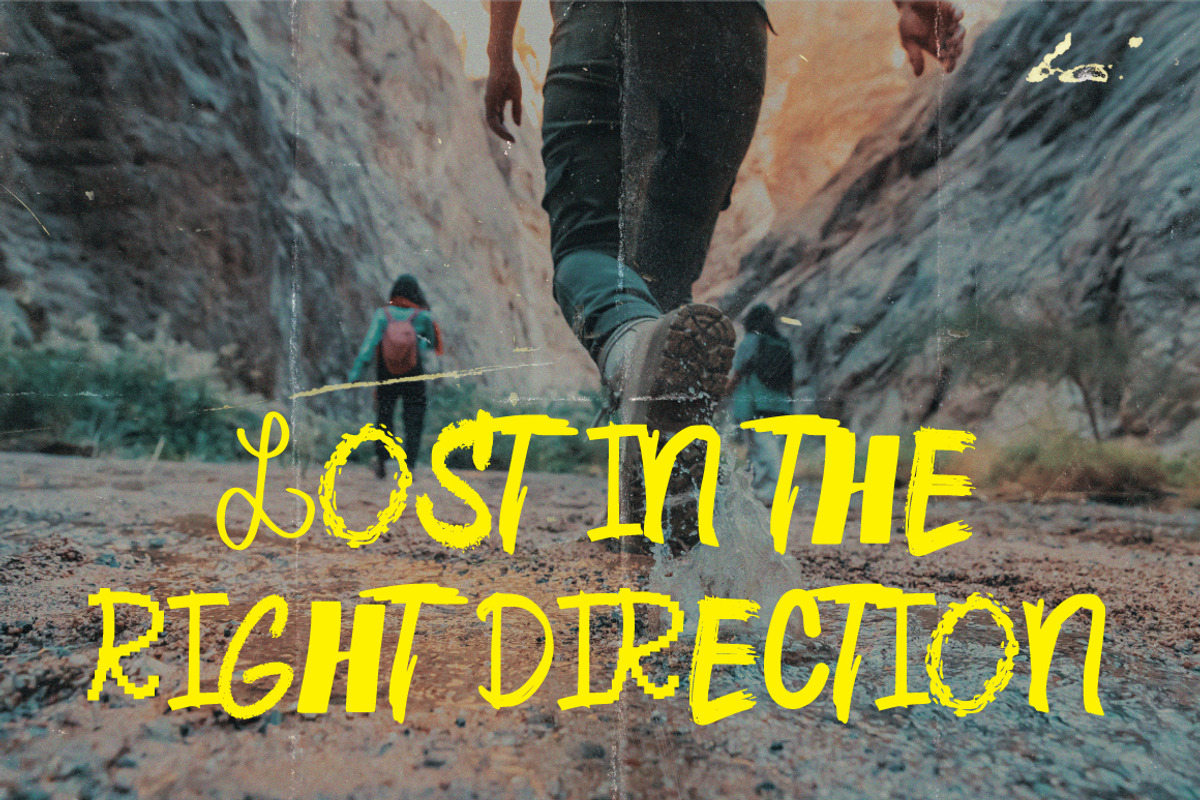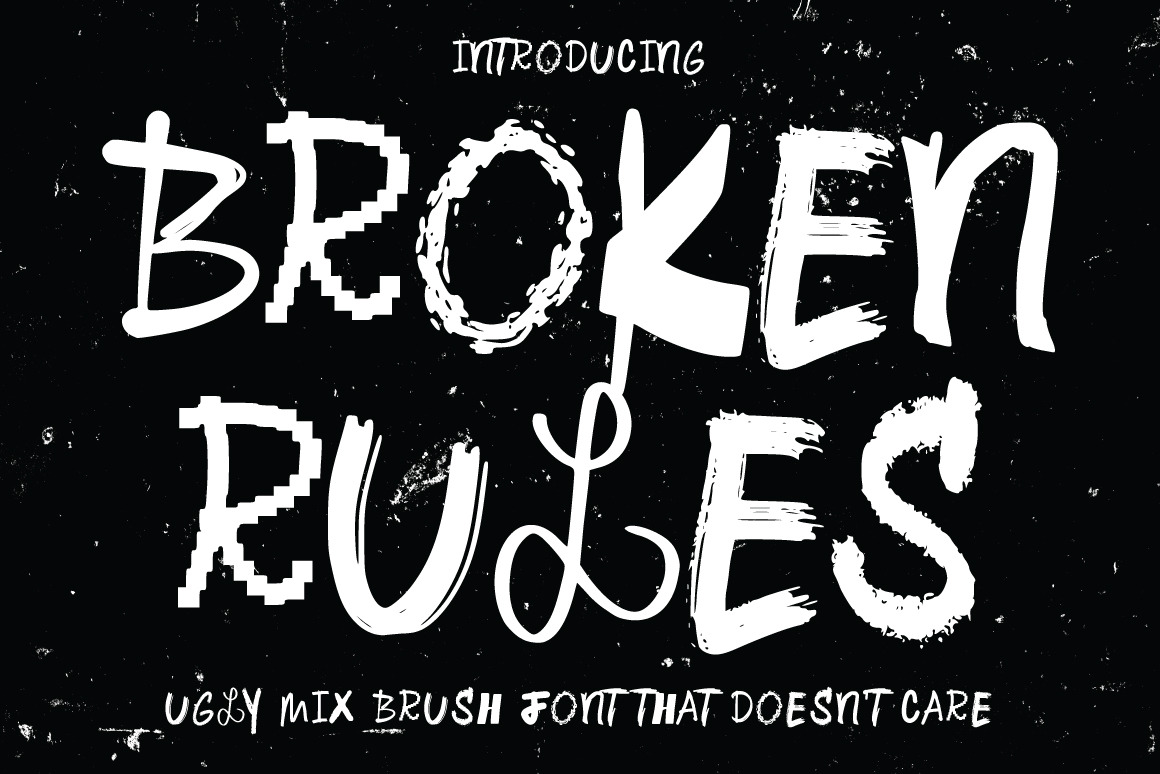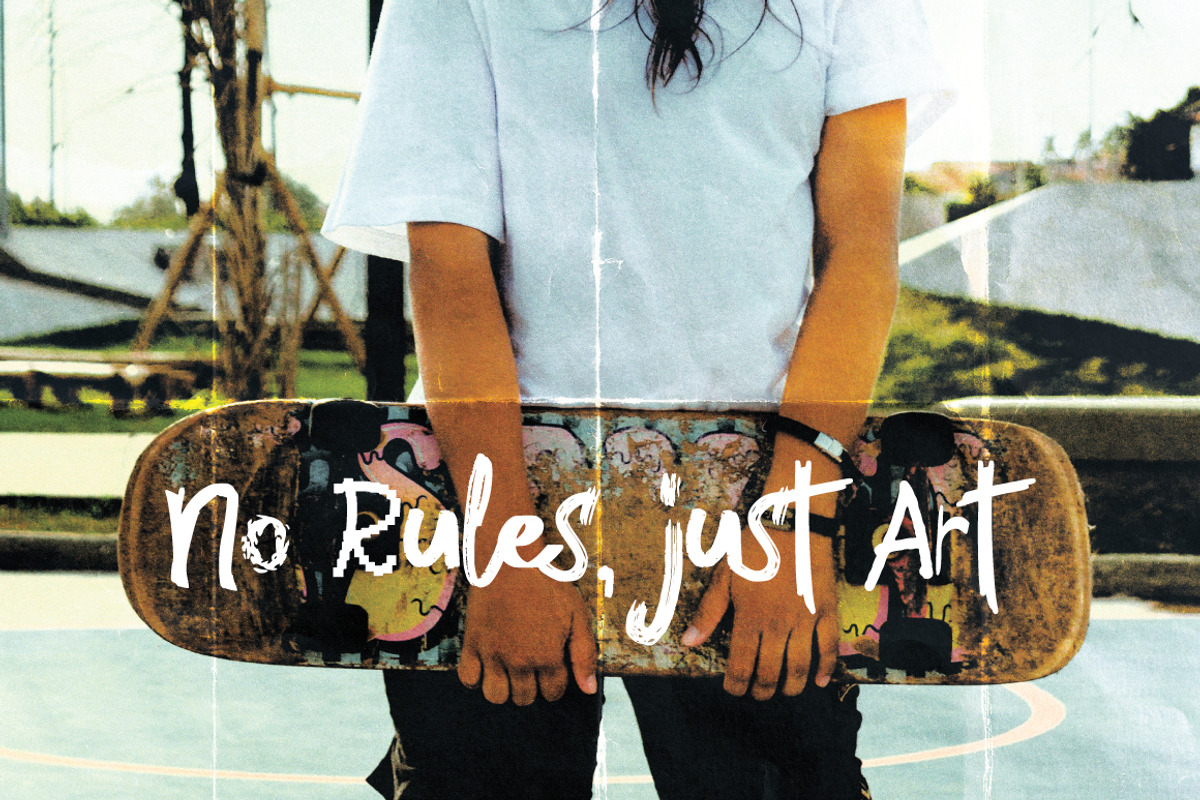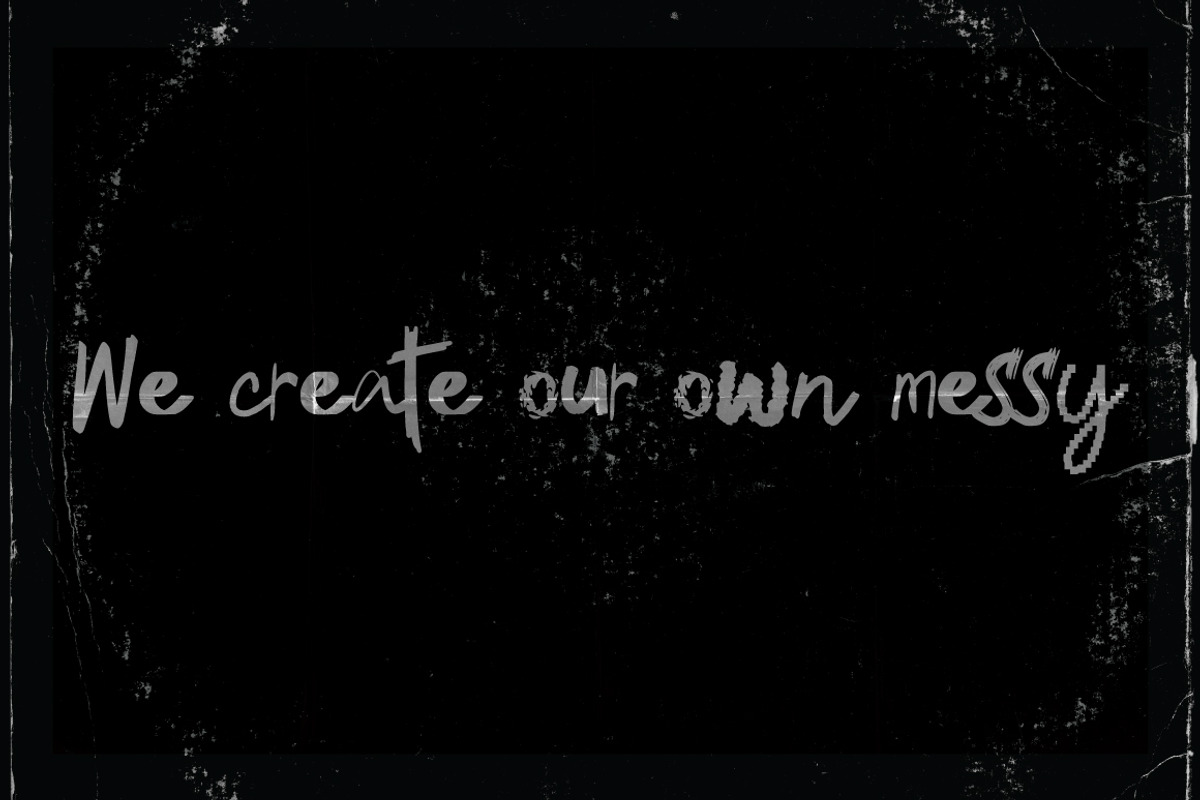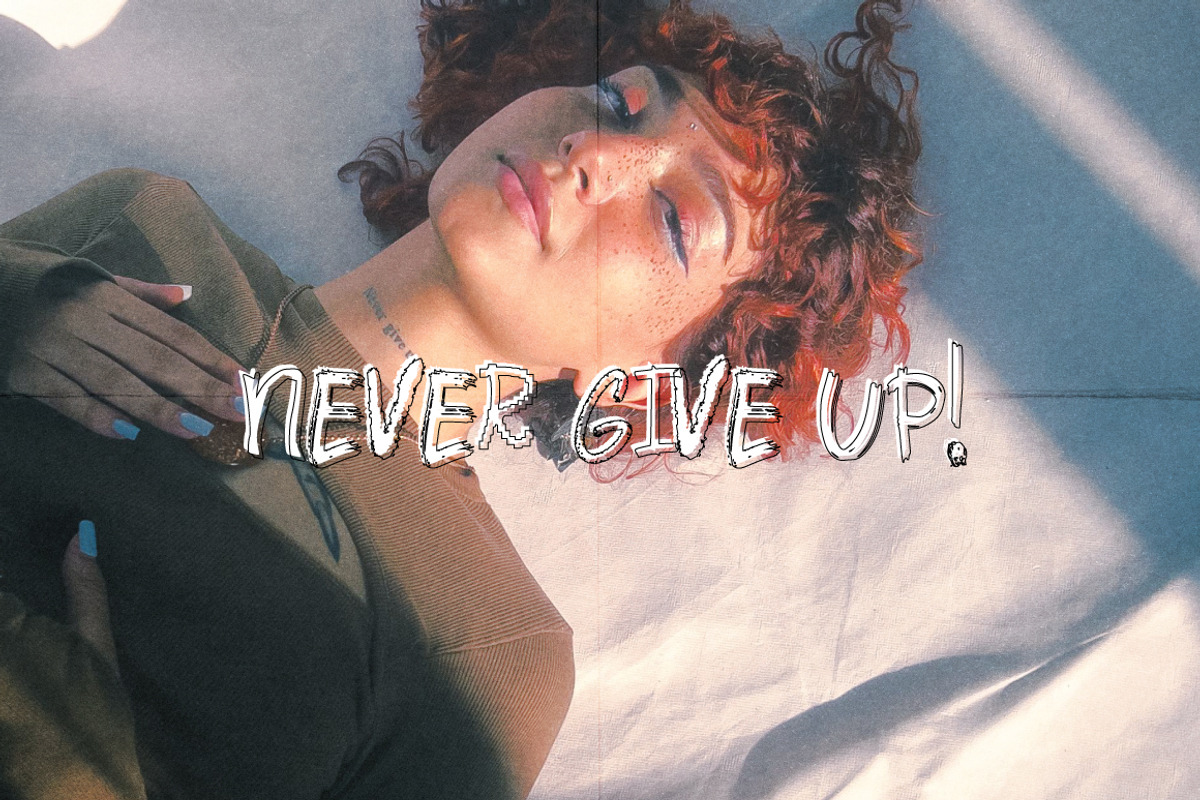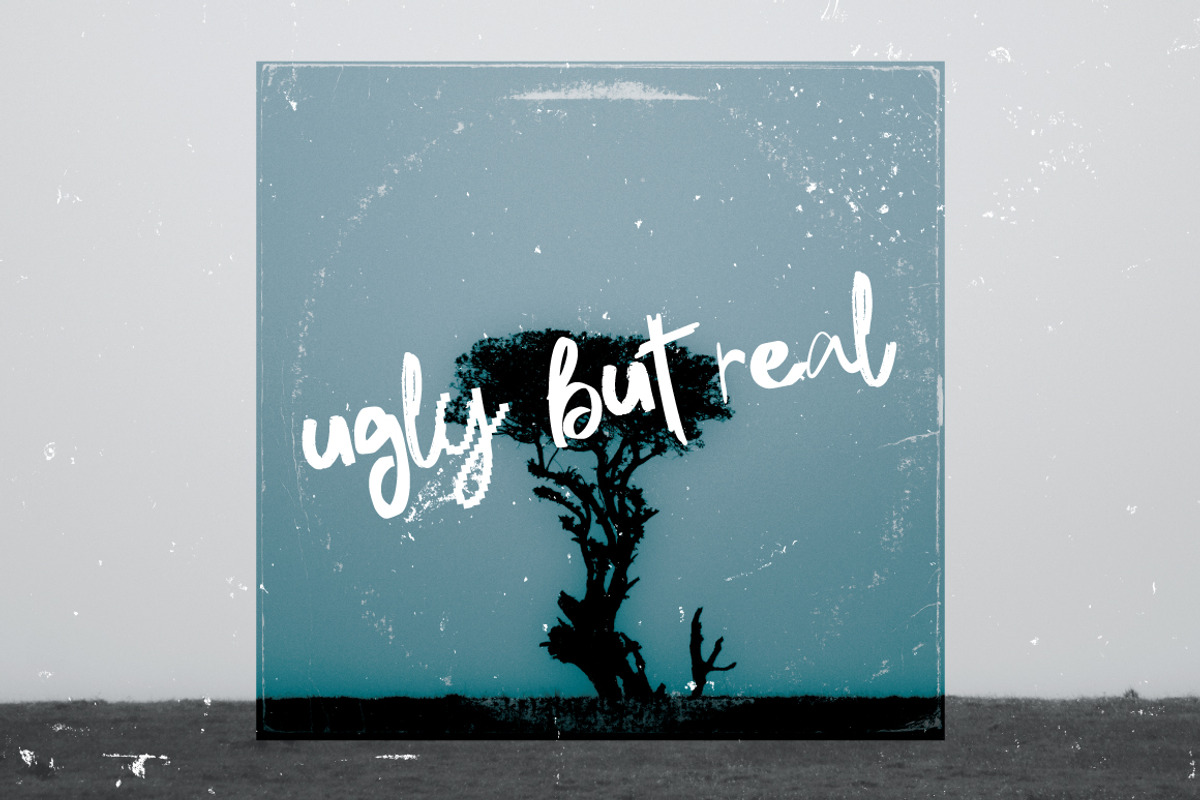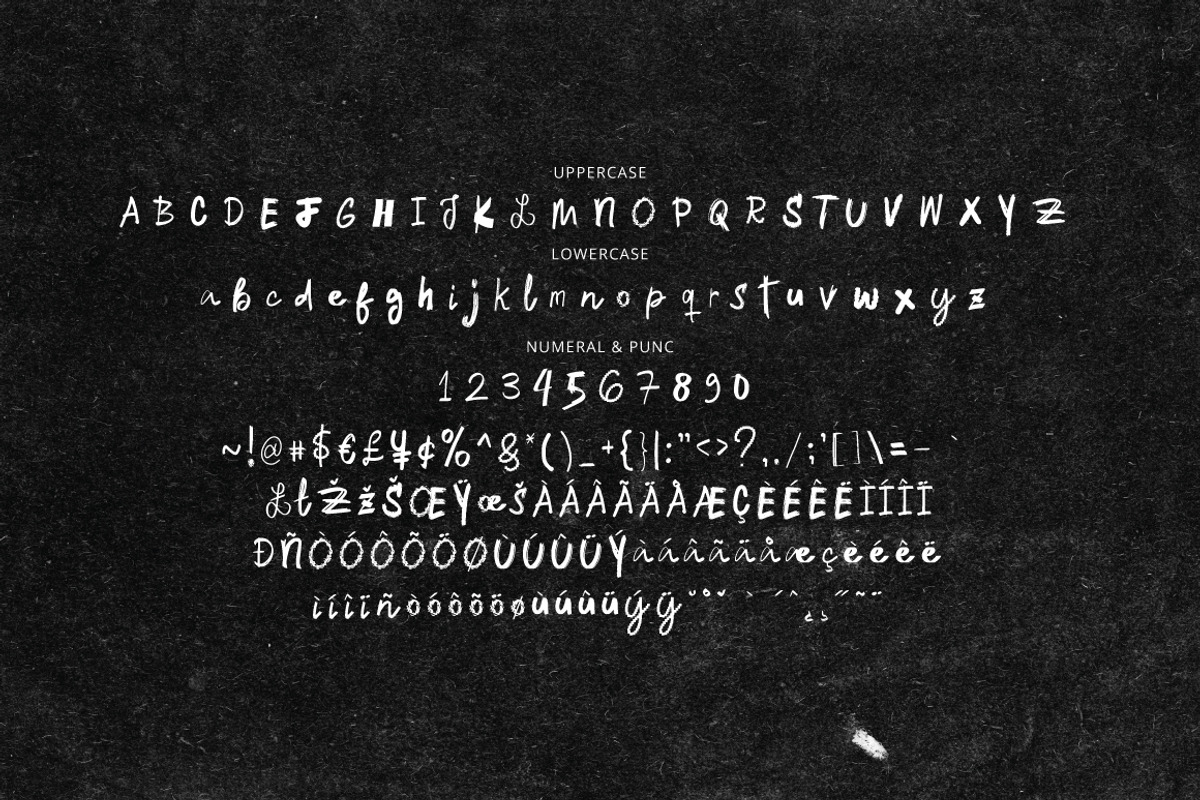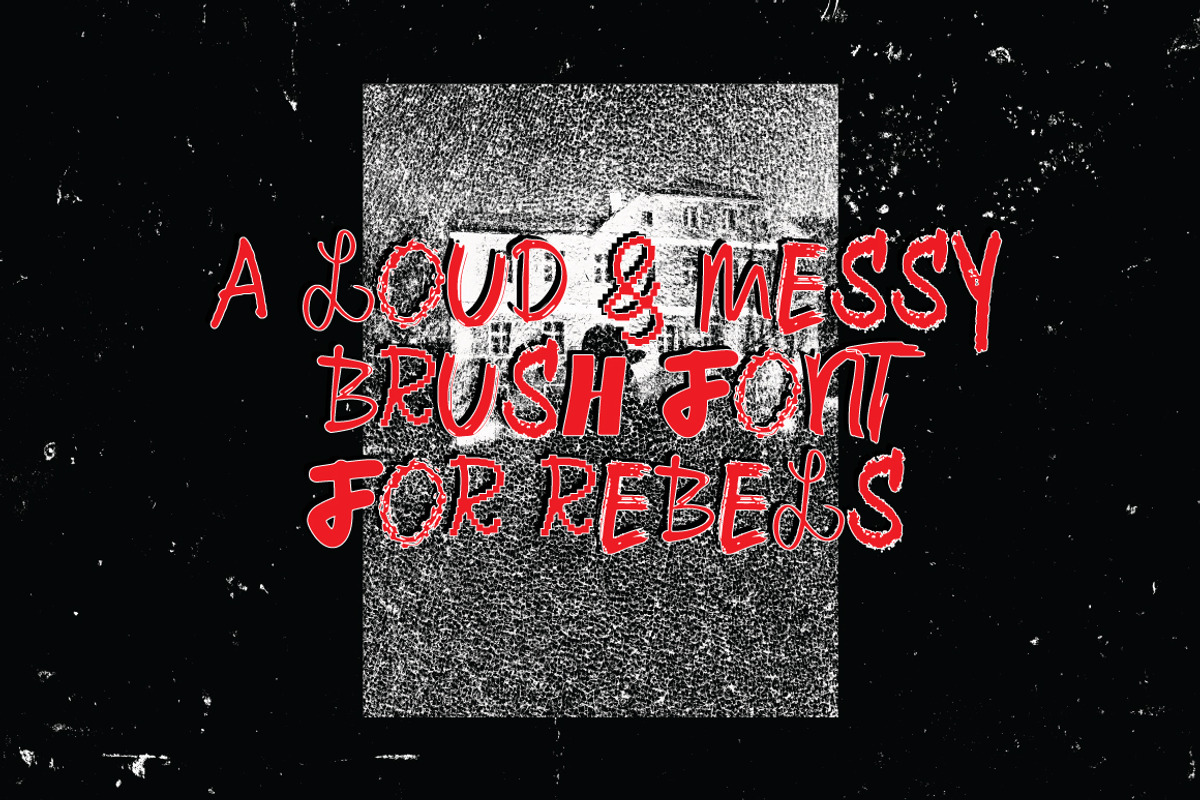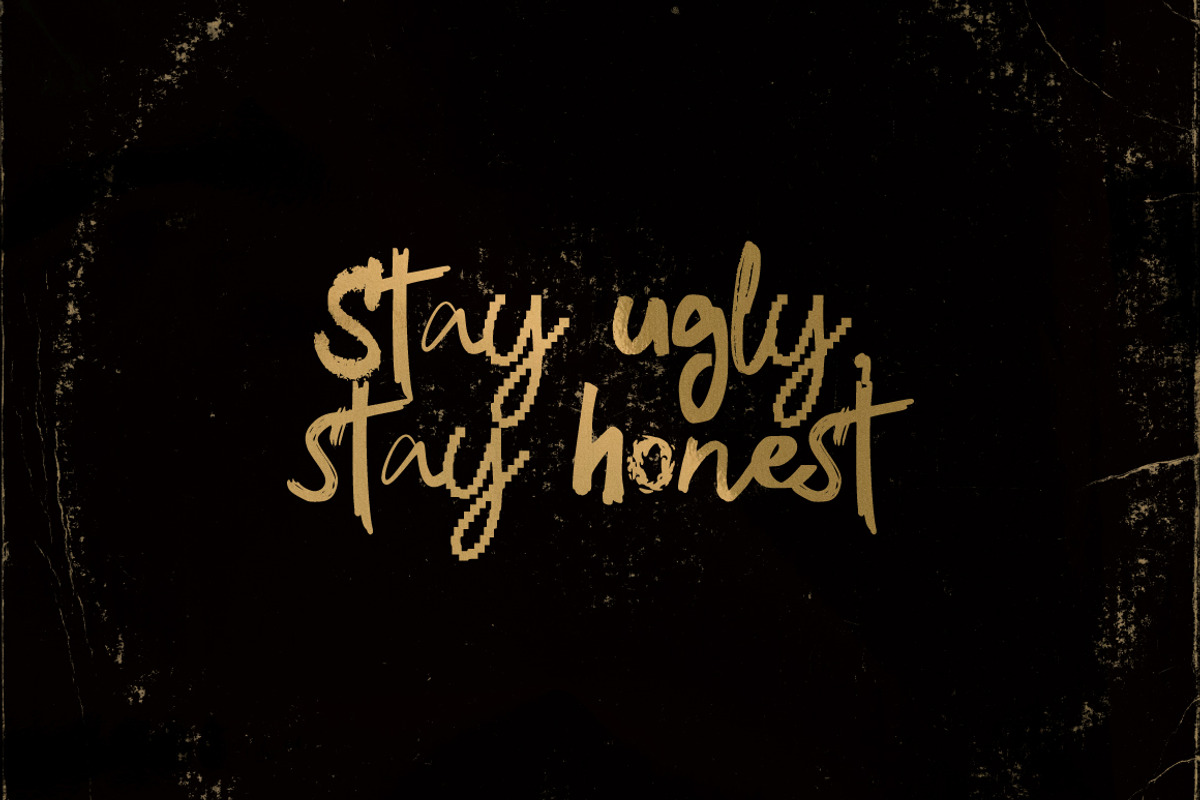
Broken Rules - Ugly My Font
Introducing "Broken Rules": The Ugly Mix Brush Font for Defiant Design.
Forget perfect lines and clean curves. This isn't a font that follows rules; it's a font that breaks them. "Broken Rules" is a raw, unpolished, and intensely expressive mix brush font designed for the bold.
Featuring a heavy, messy, and textured mix brush style, each letter feels spontaneous and full of grit. We purposefully mixed different textures and letter shapes, embracing imperfection to create a font that genuinely doesn't care about convention.
Perfect for street art, zines, punk-rock albums, apparel design, rebellious social media posts, and any project that needs to scream defiance and raw energy.